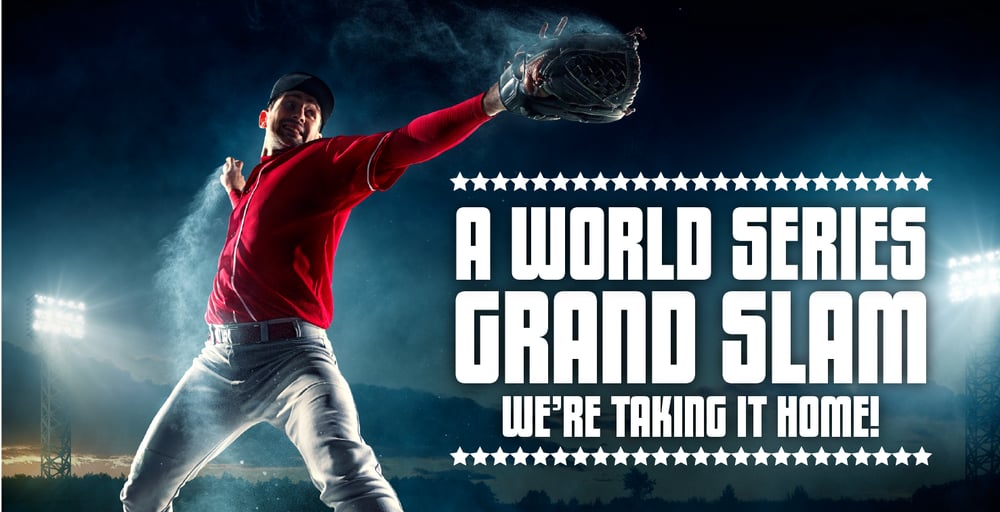
ITC Black Tulip
ITC Black Tulip font
ITC Black Tulip Font Family was designed by Dudley Rees and published by ITC. ITC Black Tulip contains 1 styles and family package options. ITC Black Tulip was designed by Dudley Rees and inspired by the modular simplicity of the Greek fret band, an ancient repeating pattern formed by tracing a line at right angles between two horizontal rules to form an interlocking motif. Rees admired the discipline of the motif, I saw how that simple rigid rectangular network suggested an alphabet that would need little or no kerning,” he says. He describes ITC Black Tulip as a “dramatic headline face”.”